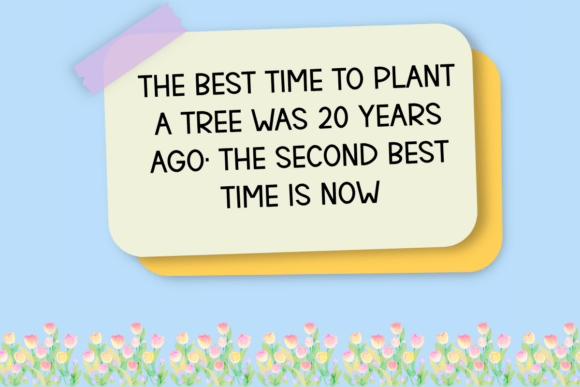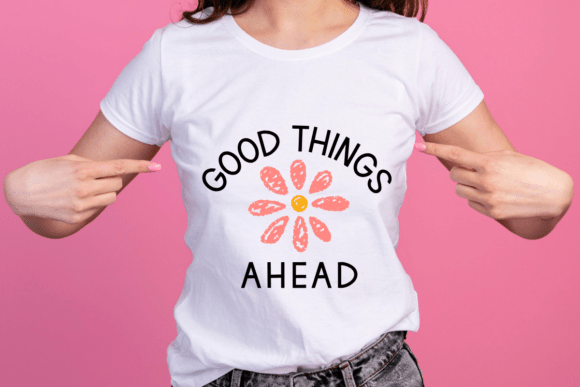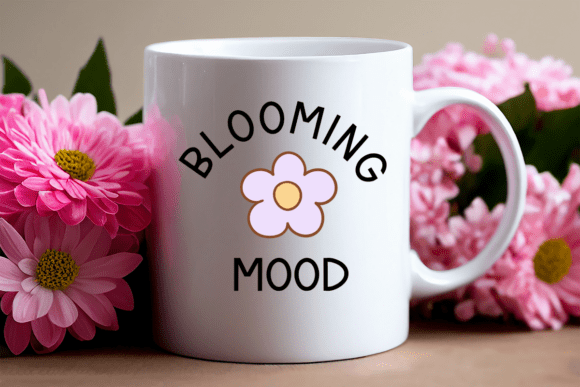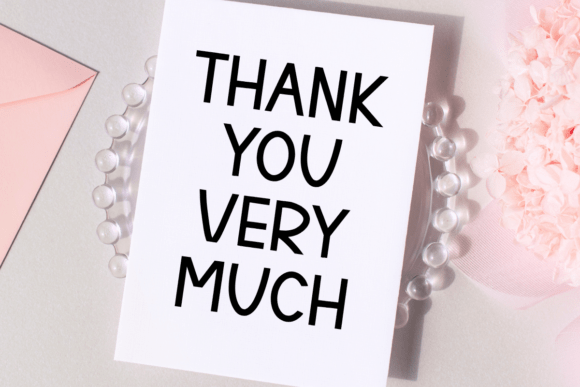
Introduction to Milky Bunny Font
As a creative, there’s nothing quite like the thrill of bringing a new design project to life. Whether it’s a custom invitation, a set of stickers, or a planner spread, the process of turning a blank canvas into a work of art is a true joy. And, let’s be honest, having the right tools and resources can make all the difference. That’s why we’re excited to dive into the world of the Milky Bunny Font, a delightful handwriting font that’s perfect for adding a touch of whimsy and charm to your creative projects.
With its natural, organic feel and transparent background, the Milky Bunny Font is a versatile design resource that’s sure to become a staple in your creative toolbox. Whether you’re working on a free download or a high-quality print project, this font is sure to bring a smile to your face and a touch of personality to your designs.
Key Features of Milky Bunny Font
- High-Quality Design Resource: The Milky Bunny Font is a premium-quality font that offers a unique and creative touch to your design projects.
- Transparent Background: This font features a transparent background, allowing you to easily layer it over any image or design element.
- Unique Character Set: The Milky Bunny Font features a unique character set, including a variety of special characters and symbols that can add a touch of whimsy to your designs.
- Perfect for Creative Projects: Whether you’re working on a branding project, a poster, or a digital illustration, the Milky Bunny Font is an excellent choice for adding a creative and playful touch.
Honest Review: Milky Bunny Font
I recently stumbled upon the Milky Bunny Font, and I must say, it’s a delightful addition to any design project. This free download is perfect for creatives looking for a high-quality, playful font to add a touch of whimsy to their work.
- ✨ The font’s transparent background makes it easy to use with any background color, giving you complete control over the design.
- ✨ The Milky Bunny Font is incredibly versatile and can be used in a variety of creative projects, from children’s book illustrations to social media graphics.
- ✨ The font is a high-quality, professional design resource that’s sure to elevate your work.
- ⚠️ The font may not be suitable for formal or corporate designs, as it has a more playful and childlike tone.
- ⚠️ Some users may find the font’s transparency feature to be a bit finicky to work with, especially in certain design software.
Overall, I’m impressed with the Milky Bunny Font. It’s a fantastic addition to any designer’s toolkit and a great resource for creatives looking for a fun and playful font to add to their designs.
How to Use Milky Bunny Font
The Milky Bunny Font is a unique and eye-catching design resource that can elevate your creative project with its high-quality and free download feature. This font is perfect for those who want to add a touch of whimsy and playfulness to their designs.
Tips for Getting the Most Out of Milky Bunny Font
To get the most out of the Milky Bunny Font, use it on a transparent background to create a sense of depth and dimension. You can also pair it with other design elements, such as graphics and images, to create a visually appealing design.
The Milky Bunny Font is perfect for a variety of creative projects, including children’s books, party invitations, and social media graphics. Its high-quality and free download feature make it an ideal design resource for anyone looking to add a touch of creativity to their designs.